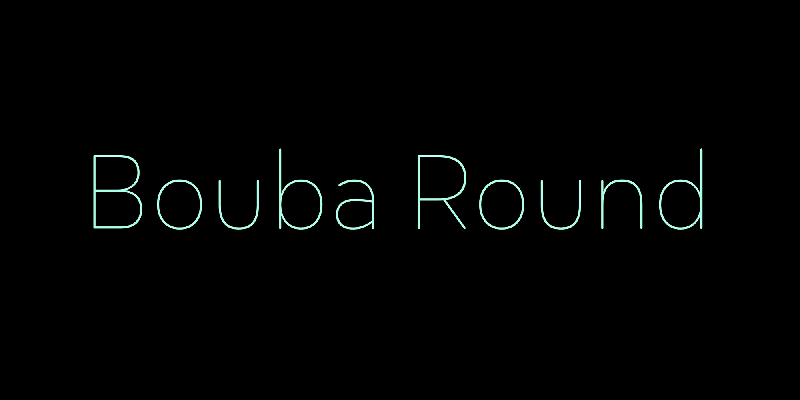
Bouba Round Variable Font Free Download is a friendly, contemporary sans-serif typeface with soft curves and playful personality. Its rounded terminals and smooth, open shapes make it perfect for modern branding, children’s products, app interfaces, packaging, and anywhere you want your message to feel warm, approachable, and stylish.
As a variable font, Bouba Round gives you full control over its weight spectrum—from ultra-light to bold—making it a super flexible choice for responsive design and creative experimentation. This adaptability allows you to maintain consistency across different platforms while customizing tone and emphasis to match the project.
Despite its cheerful vibe, Bouba Round remains professional and highly legible. It strikes a great balance between character and clarity, making it suitable for both display and body text. Its simple, rounded forms also make it a great option for inclusive and accessible design.
Let Bouba Round bring charm, clarity, and versatility to your next design—where soft geometry meets sharp creativity.